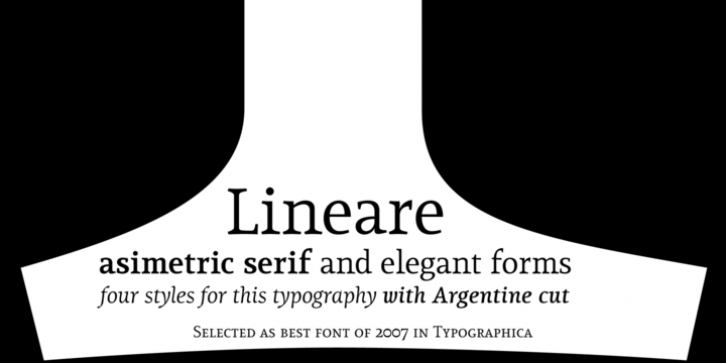
Lineare was designed by Eduardo RodrÃguez Tunni and published by Tipo. Lineare contains 9 styles and family package options.
Lineare Serif is an attempt at solving the difficult problem of creating readable text type, seeking new ways to provide readers with some pleasure and rest as they walk along each line, creating a space where there is harmony between man and the printed form.
Asymmetric serifs both in their height and width, medium contrast in the stroke, and balanced upward and downward movements make "Lineare Serif" a typeface featuring both attitude and aptitude for editorial purposes.